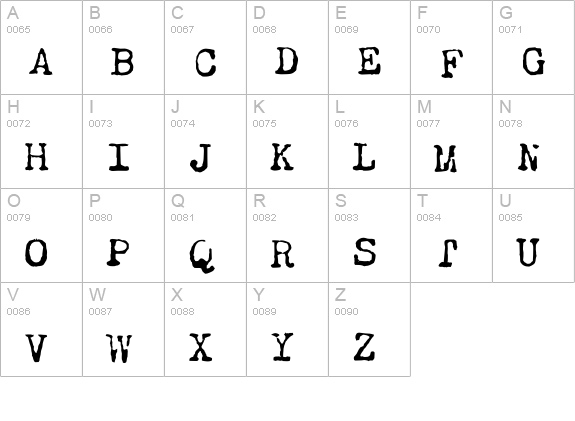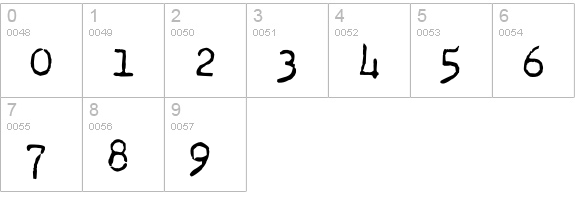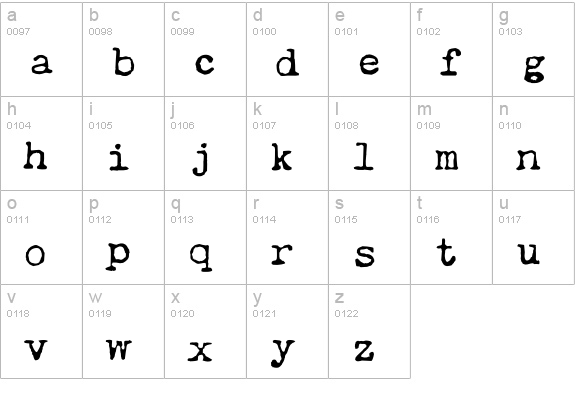
Chandler42RoughNoir Font Details
Chandler42RoughNoir font exudes a sense of mystery and sophistication with its unique rough texture and bold noir styling. This font is perfect for adding a touch of edginess to your design projects, whether you're working on a poster, logo, or branding materials. The rough edges give Chandler42RoughNoir font a distinctively rugged and artistic feel that sets it apart from traditional fonts. Best of all, Chandler42RoughNoir font is completely free to download at FontsMarket.com. You can easily add this striking font to your collection and start using it in your projects right away. Don't miss out on the opportunity to enhance your designs with the captivating charm of Chandler42RoughNoir font.